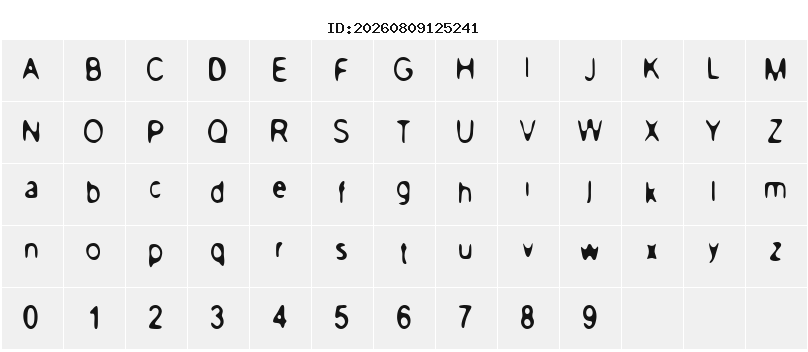
PeaceNow Basic Preview
• Font Name: PeaceNow Basic
• Font Style: PeaceNow Basic
• Full Font Name: PeaceNow Basic
About PeaceNow Basic.ttf
PeaceNow Basic.ttf is a modern, elegant sans-serif font designed for ultimate readability and visual harmony. Perfect for branding, headlines, web design, and print materials.